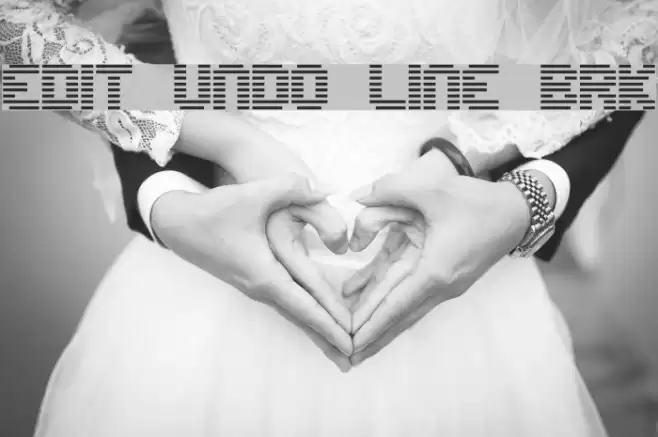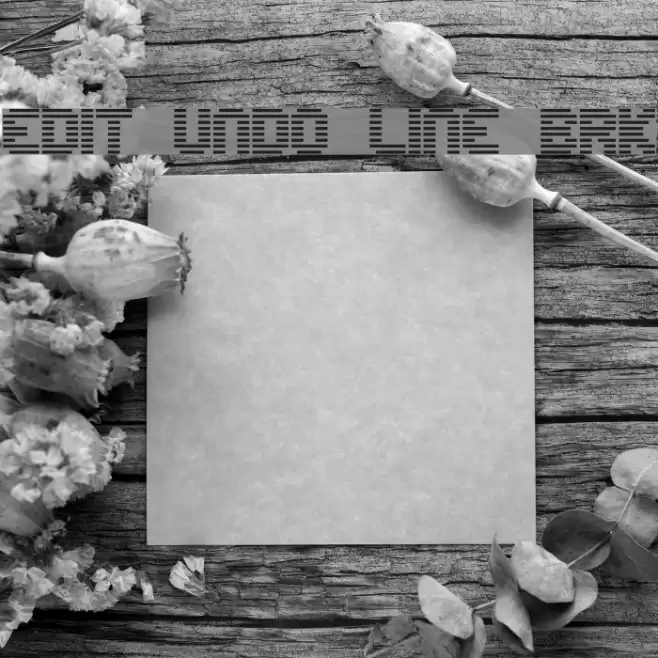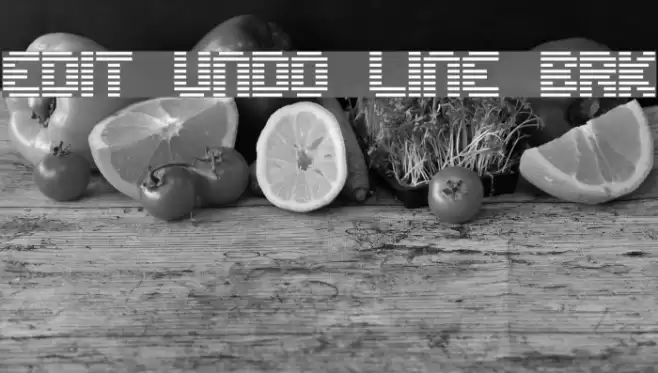
Edit Undo Line BRK Font
Edit Undo Line BRK Description
This font features a unique, modern design characterized by its segmented, horizontal line structure. Each character is composed of parallel lines, creating a digital, futuristic appearance. The font maintains a consistent height across all characters, providing a uniform look. The spacing between the lines within each character is tight, contributing to its compact and efficient style. This design is reminiscent of digital displays or barcode patterns, making it ideal for tech-oriented projects. The font's geometric precision and clean lines offer a distinct visual appeal that stands out in digital and print media.
A modern, segmented line font with a digital, futuristic style from Pixel fonts.
- Proposed Projects: Ideal for tech branding, digital interfaces, futuristic posters, and innovative product packaging.
- Character Spacing: Tight